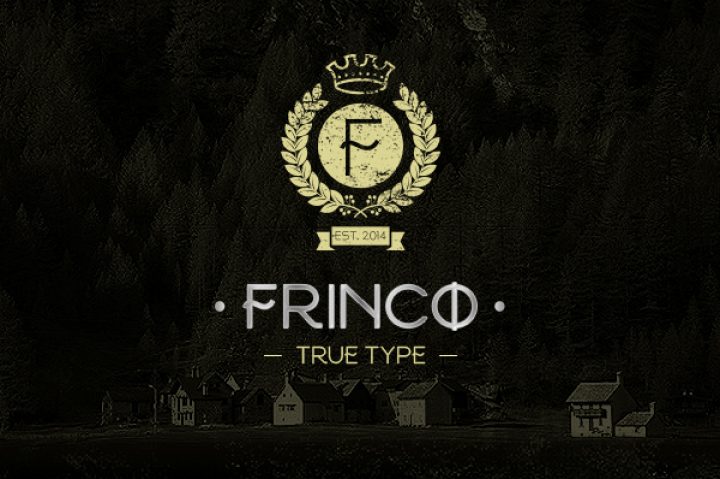
Free Frinco Font
Free frinco font for any designer that is looking to display their design professionally. Go give some love to The Hungry JPEG for creating this top-notch typeface. Easily amaze your audience with this fancy font and make your graphic designs pop up from the crowd.